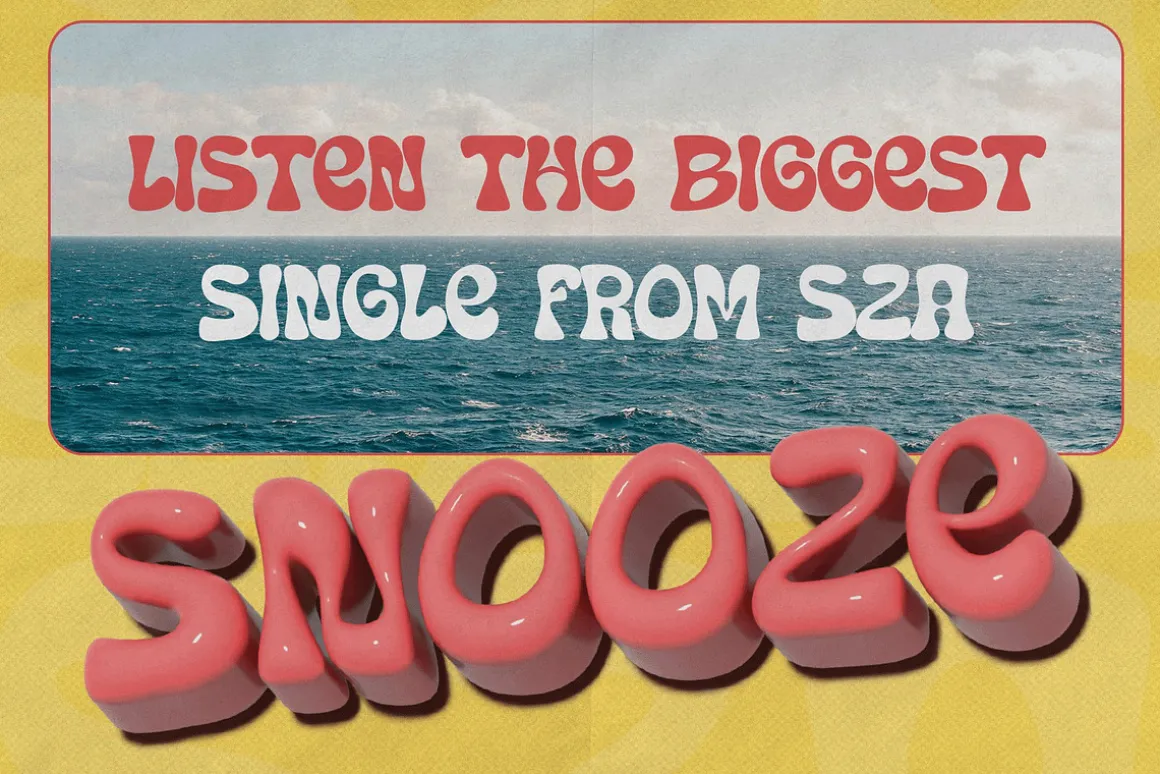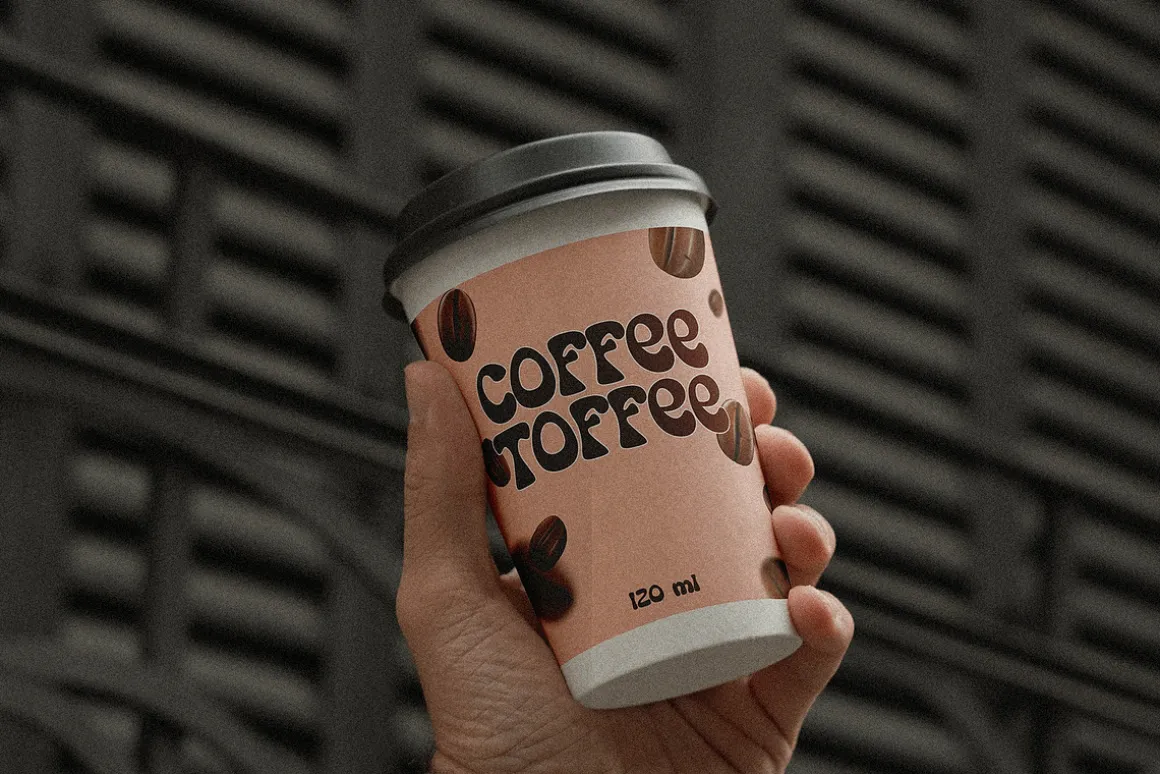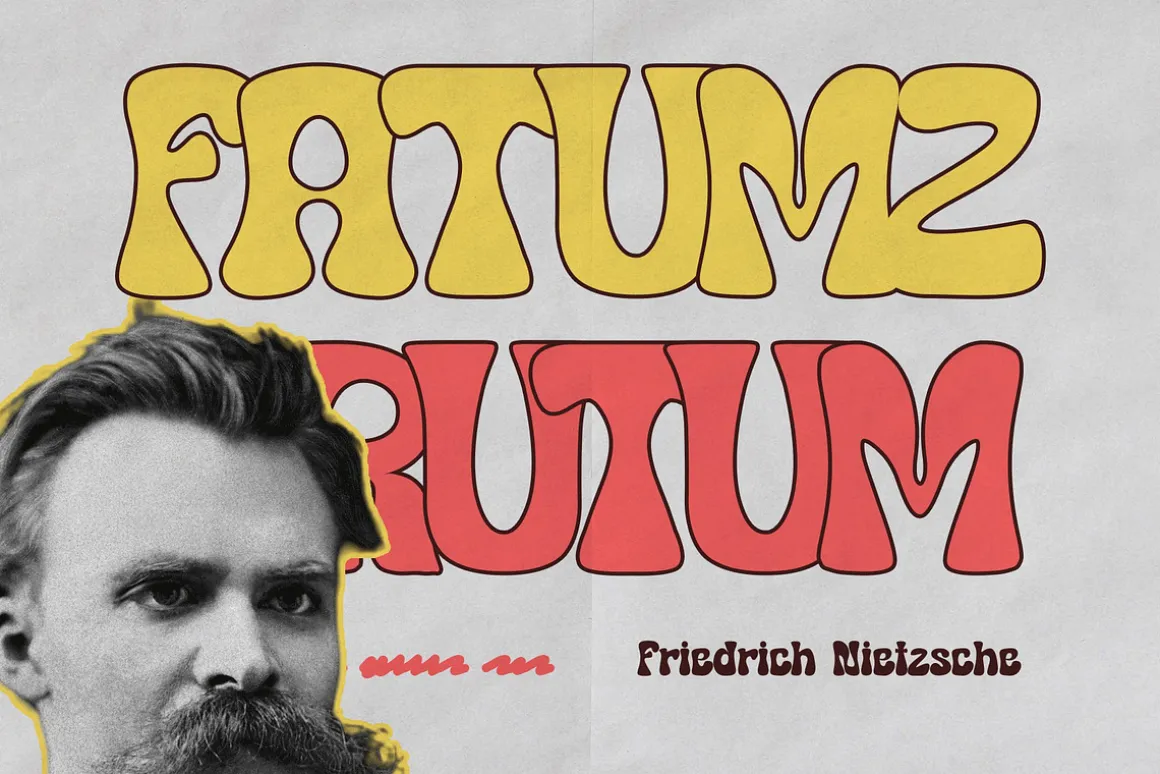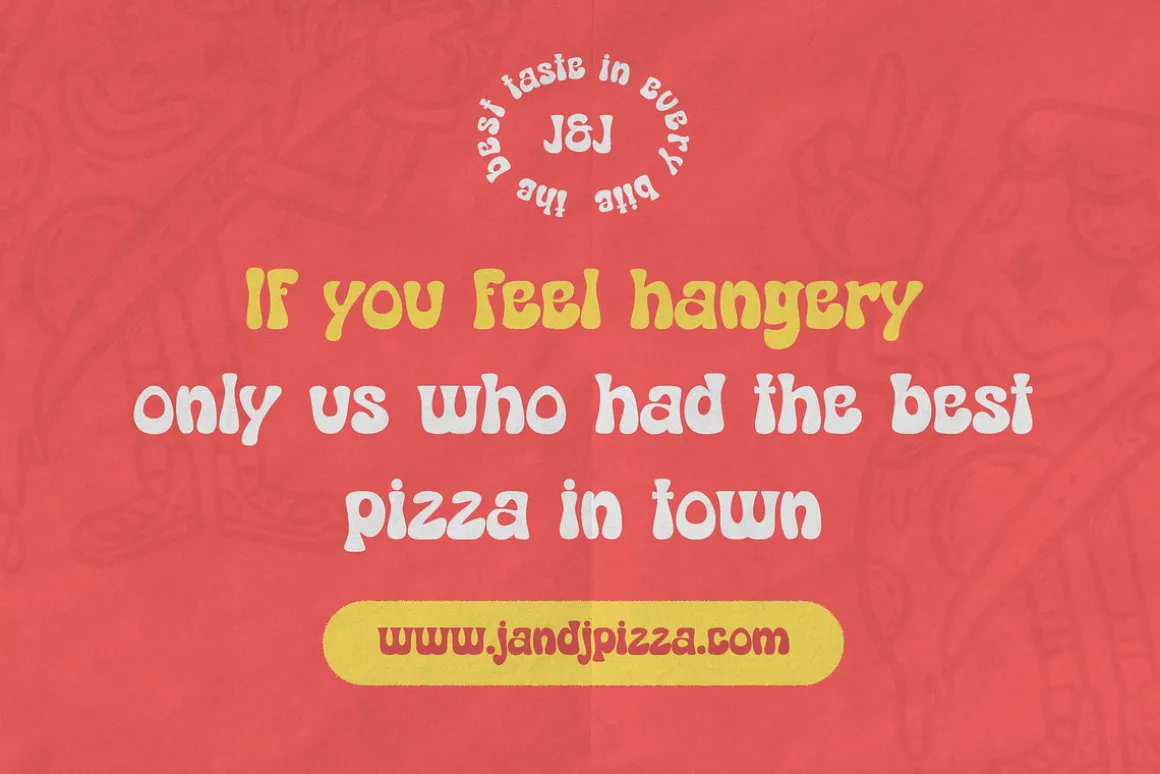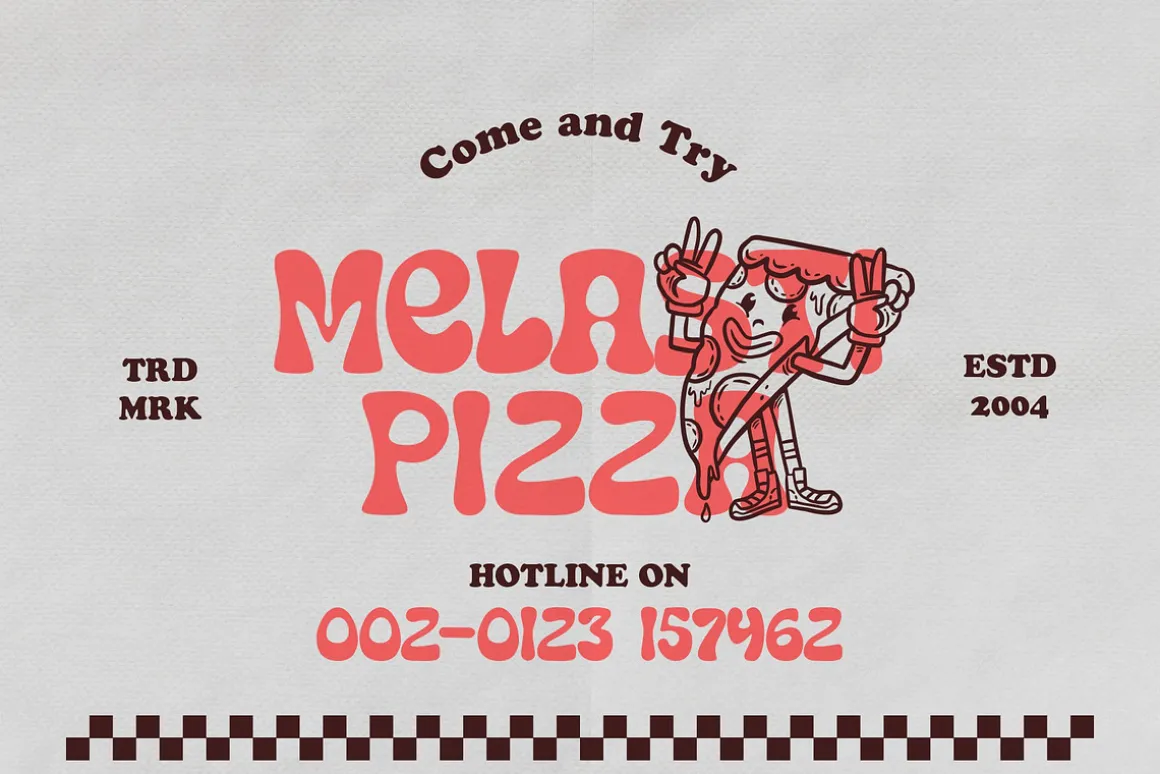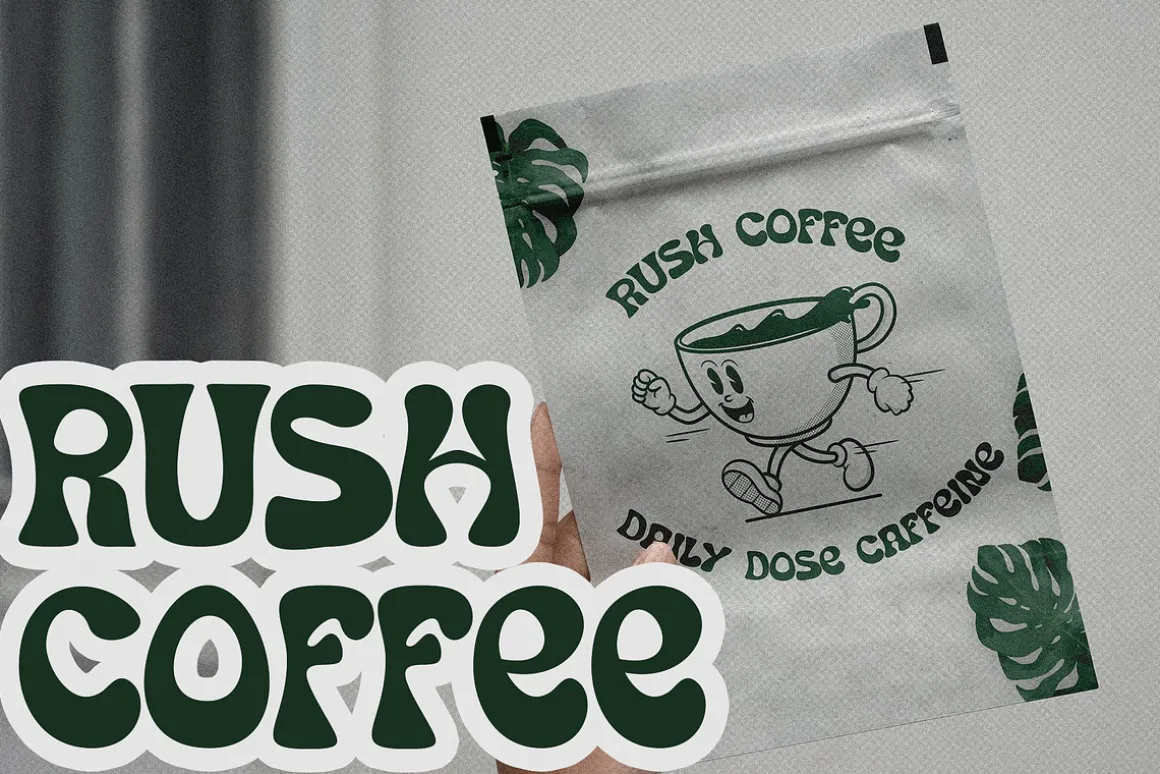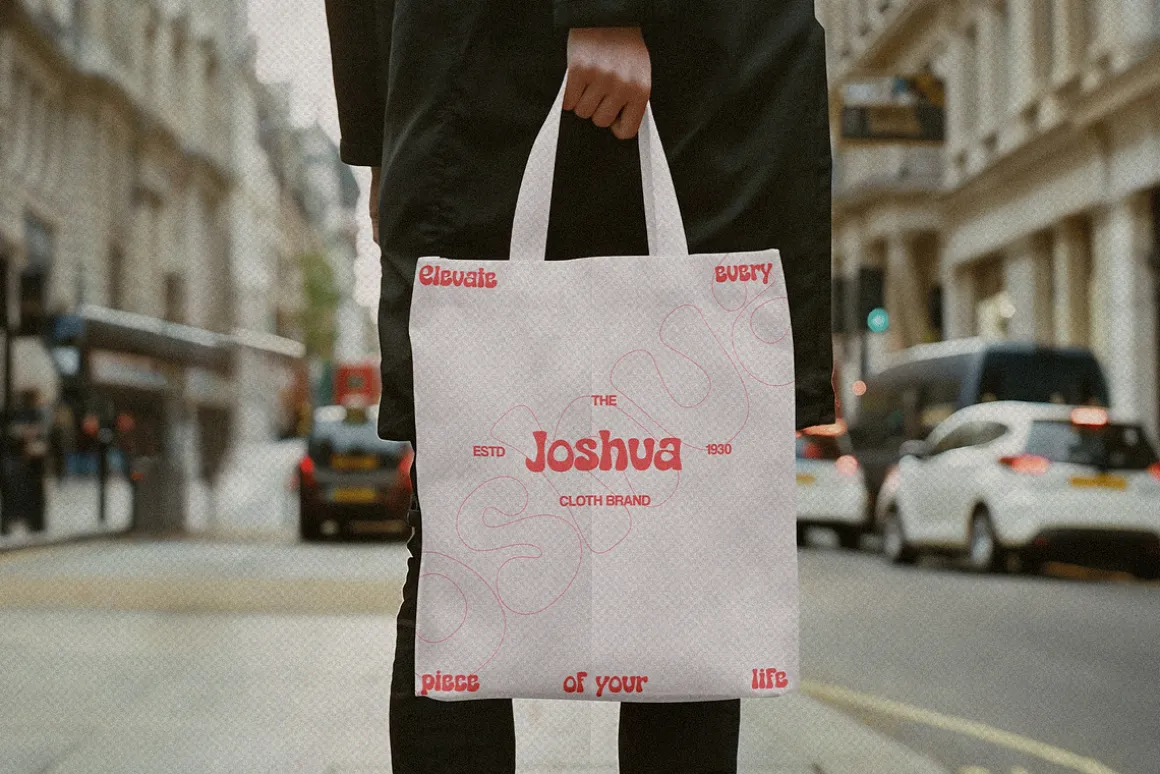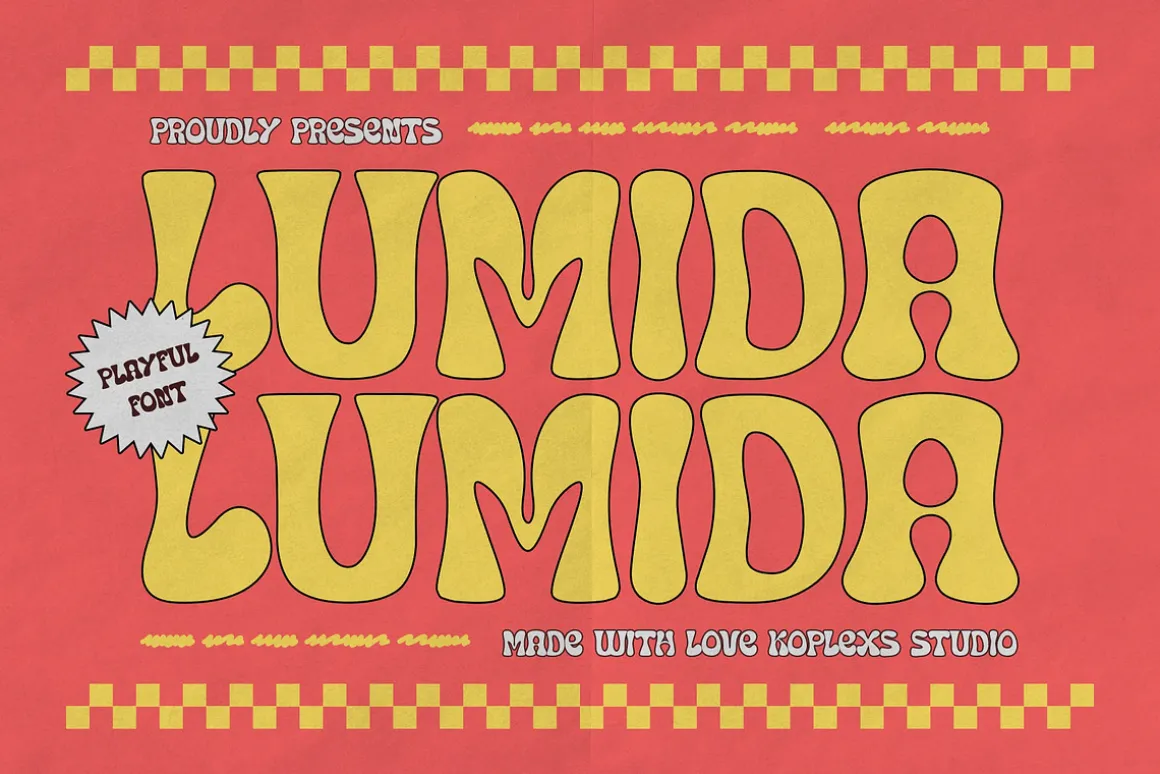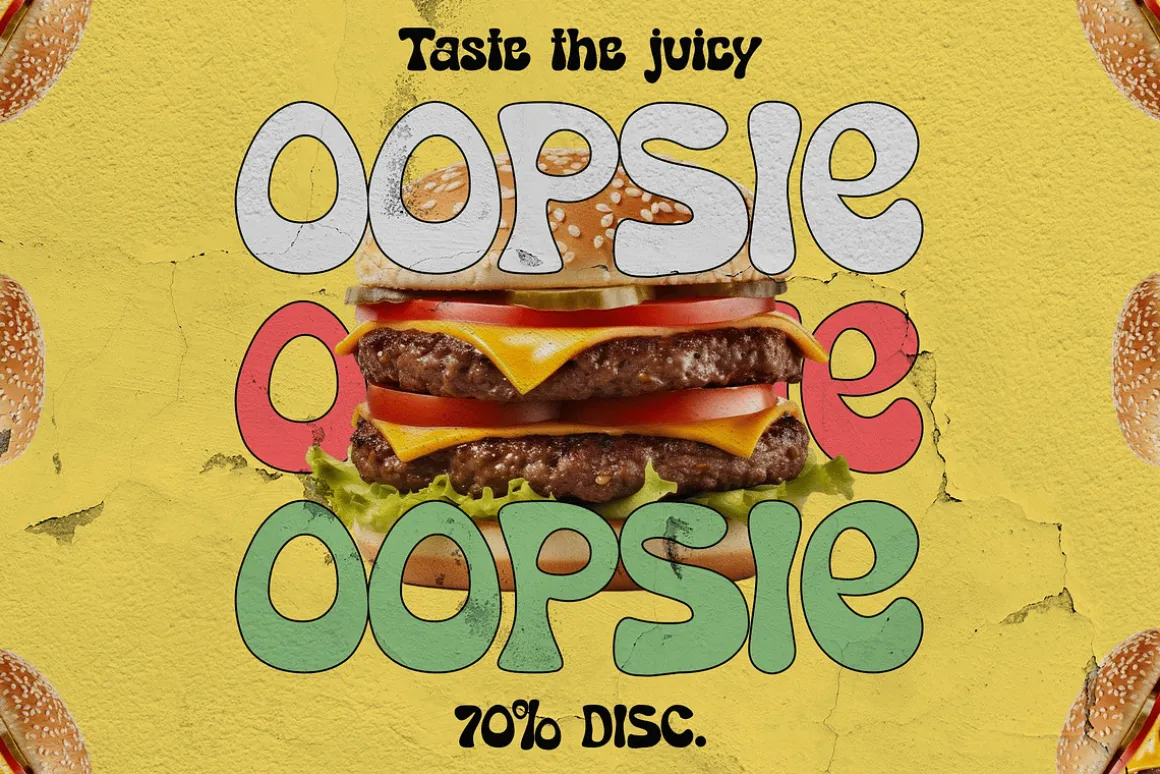
Lumida – Playful Groovy Font
Bring Your Designs to Life with Lumida!
Introducing Lumida, a bold and playful groovy font inspired by retro 60s and 70s aesthetics. This typeface is perfect for designers seeking a fun, eye-catching, and nostalgic vibe in their projects. With its bubbly, curved forms and smooth edges, Lumida exudes warmth and charm, making it ideal for creative projects that need a cheerful and vibrant touch.
Perfect For
- Posters & Flyers: Add a retro vibe to your promotional materials.
- Apparel & Merchandise: Create standout designs for t-shirts, tote bags, or stickers.
- Social Media Graphics: Grab attention with bold, groovy typography.
- Branding: Perfect for logos, packaging, and identity systems.
- Wedding & Event Invitations: Add a whimsical, playful feel to your designs.
Key Features
- Groovy Aesthetic: Inspired by vintage typography from the 60s and 70s.
- Playful Personality: Perfectly balances boldness and approachability.
- All Caps Font: Includes uppercase letters to make your headlines pop.
- Multilingual Support: Covers a wide range of languages, ensuring versatility.
Why Choose Lumida?
- Versatility: Works well across various design mediums, from print to digital.
- Trend Appeal: Capitalizes on the resurgence of retro and groovy design trends.
- Premium Quality: Meticulously crafted to meet professional standards.